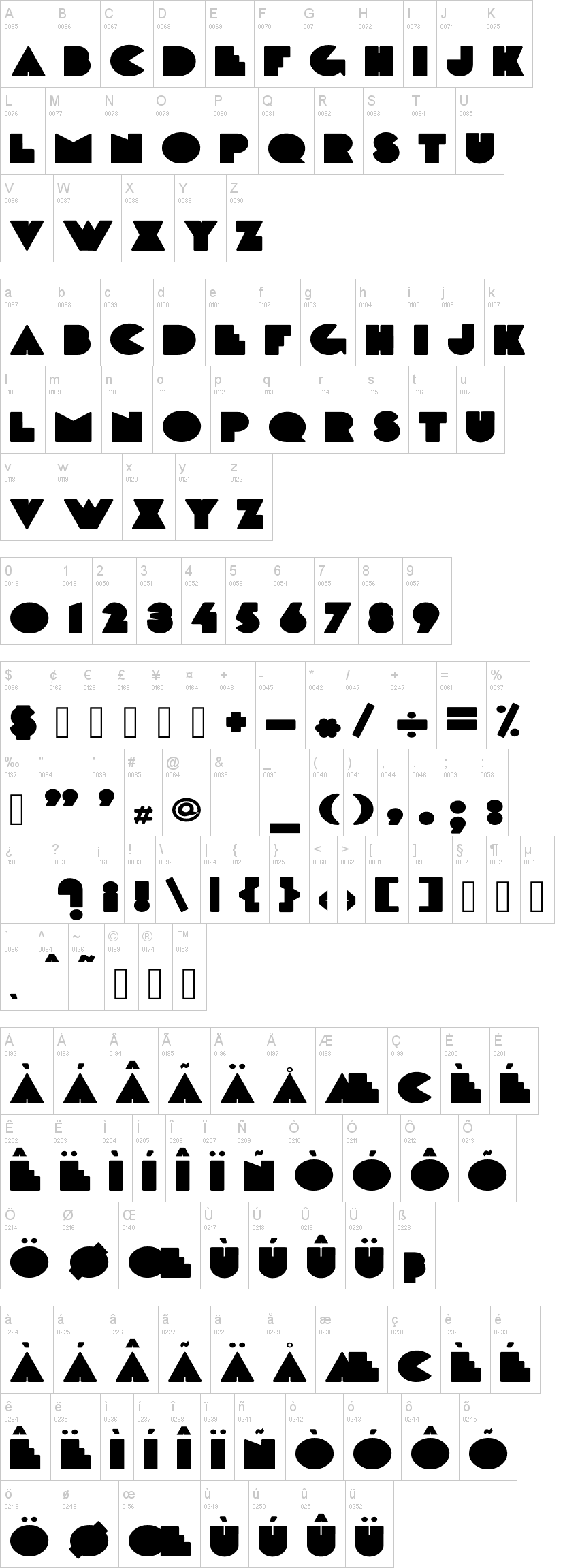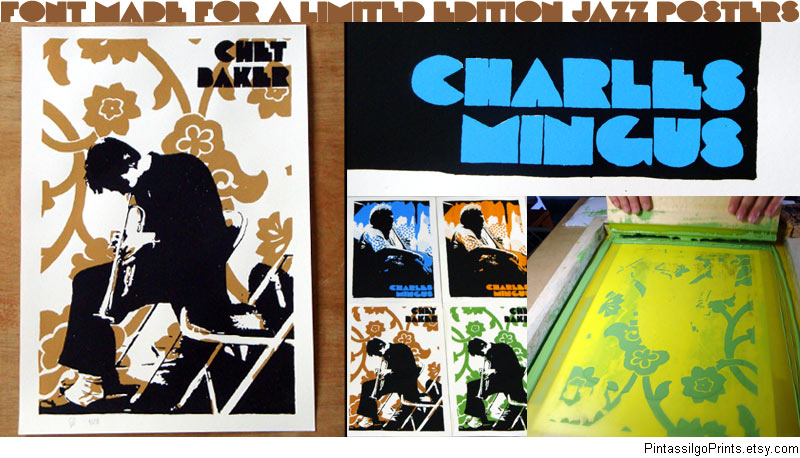
DeLargeOutline.ttfDeLargeWired.ttfDeLargeShadow.ttfNote of the authorMade for a limited handprinted jazz posters series.
This is our very first digital font. Recently we added some more glyphs and adjusted some more kerning pairs. Enjoy!